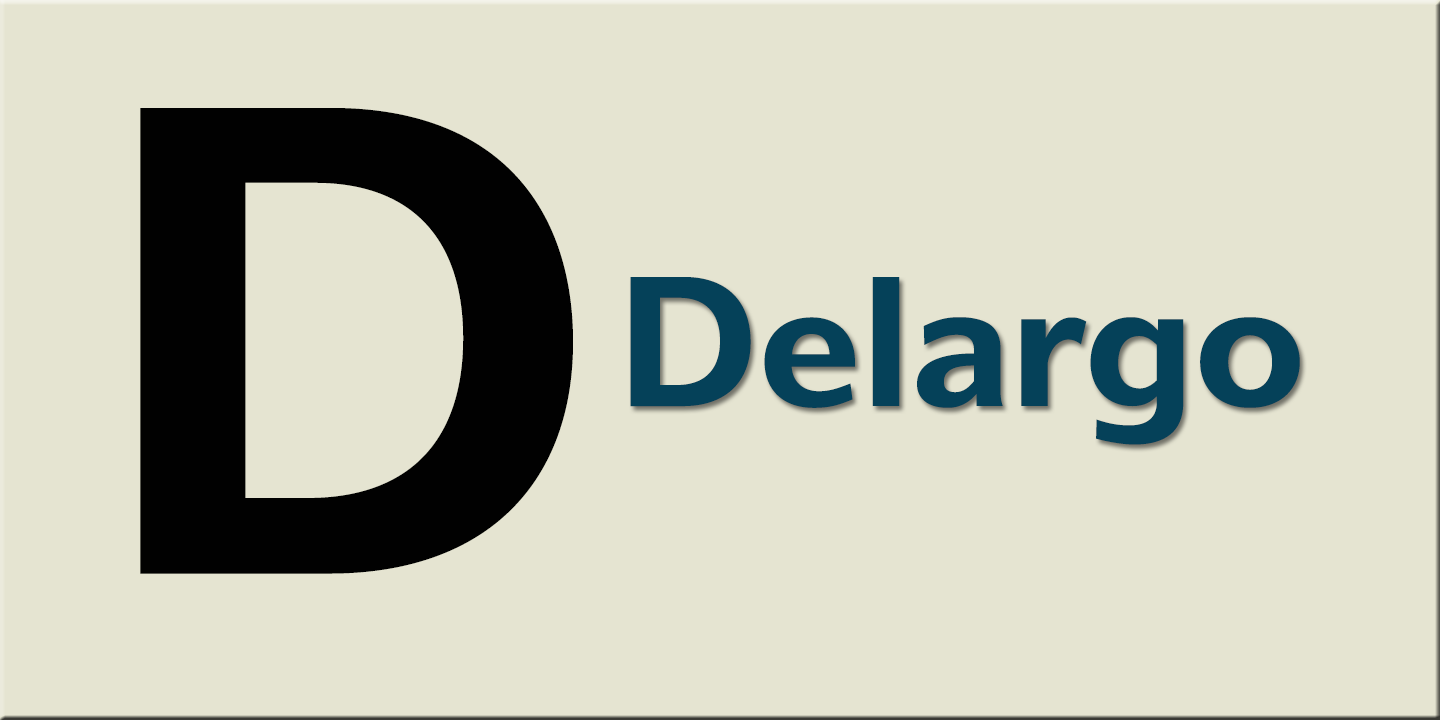
Delargo DT Font is ideal for luxury travel agencies, upscale hospitality brands, sophisticated resort marketing, premium lifestyle magazines, elegant event planning services, high-end vacation rental properties, exclusive destination branding, and refined leisure industry communications.
What makes Delargo DT Font truly exciting is its remarkable ability to evoke the essence of luxurious escapism and sophisticated wanderlust through elegantly crafted letterforms that capture the spirit of premium travel experiences and exclusive destination adventures. This distinguished typeface features refined characteristics with subtle travel-inspired elements that instantly convey elegance, exclusivity, and sophisticated leisure lifestyle, making it the perfect choice for luxury brands celebrating exceptional travel experiences, promoting premium destinations, and communicating with affluent audiences who seek extraordinary vacation experiences and world-class hospitality services.
The Delargo DT Font family encompasses light, regular, medium, bold, and elegant script variations, complemented by luxury travel ornaments and destination-inspired alternates that enhance the sophisticated vacation atmosphere, providing designers with comprehensive tools for creating premium travel brand experiences and upscale communications that resonate with luxury-minded travelers seeking exceptional destination experiences.
Luxury hospitality brands and premium travel companies will find Delargo DT Font Free Download essential for establishing the sophisticated presence and exclusive appeal needed to attract discerning travelers who demand exceptional service and extraordinary experiences. This versatile typeface excels in both intimate luxury applications and grand destination marketing campaigns, maintaining its elegant character while inspiring wanderlust across all upscale travel contexts.
The font's sophisticatedly crafted construction demonstrates exceptional attention to both aesthetic refinement and luxury market appeal, with perfectly balanced proportions that ensure elegant presence while maintaining superior readability in premium travel materials. From luxury resort brochures to exclusive travel itineraries, this refined typeface maintains its sophisticated appeal while providing the versatility needed for comprehensive luxury travel brand systems. Premium hospitality brands appreciate how this font effortlessly communicates elegance, exclusivity, and distinguished American luxury travel design excellence through superior destination-inspired typography.